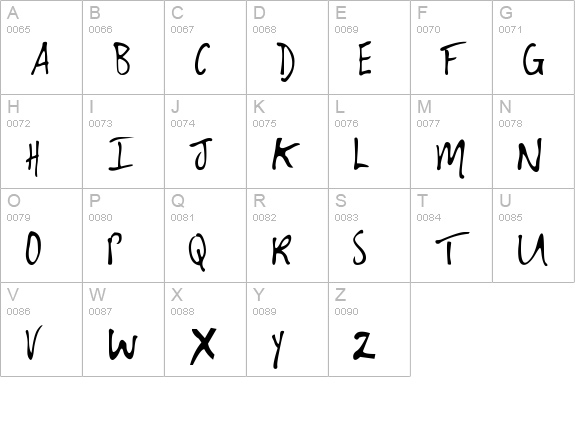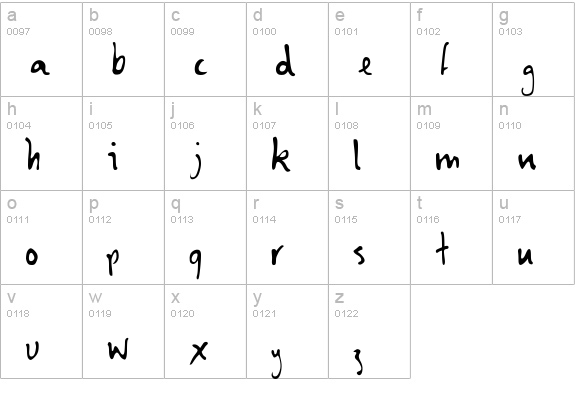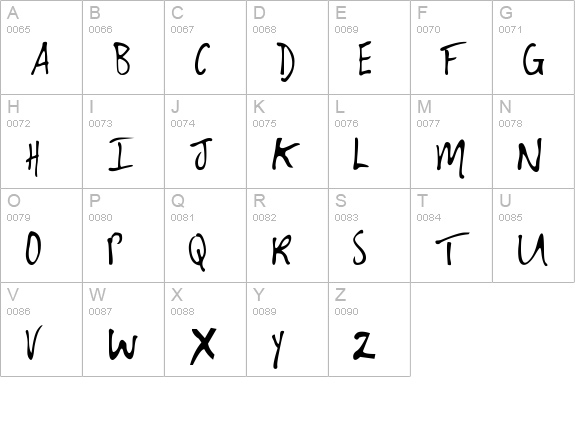
Shirley Font Details
Shirley font is a beautifully designed typeface that exudes elegance and sophistication. With its smooth curves and balanced letterforms, this font is a perfect choice for any project that requires a touch of class. But what sets Shirley font apart is that it is not only visually stunning, but also free to download. Yes, you heard it right – this amazing font is freely available to download at FontsMarket.com. Whether you're designing a logo, creating a poster, or crafting an invitation, Shirley font will elevate your designs to new heights. Its versatility allows it to be used in a wide range of applications, from fashion and beauty to food and beverage. The attention to detail in Shirley font is truly remarkable. Each letter is meticulously crafted, ensuring that every word you write is a work of art. Its readability is superb, making it a perfect choice for both headlines and body text. Don't miss out on the opportunity to enhance your designs with Shirley font. Download it for free today at FontsMarket.com and let your creativity soar.